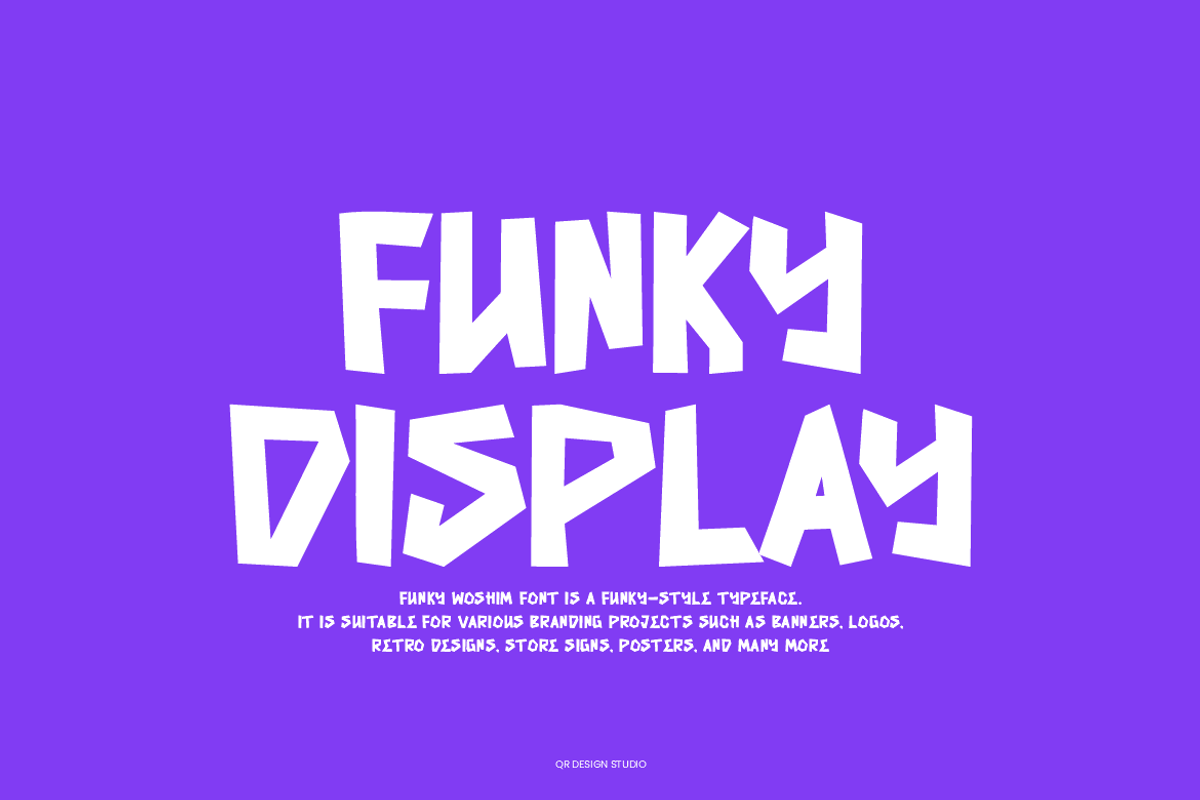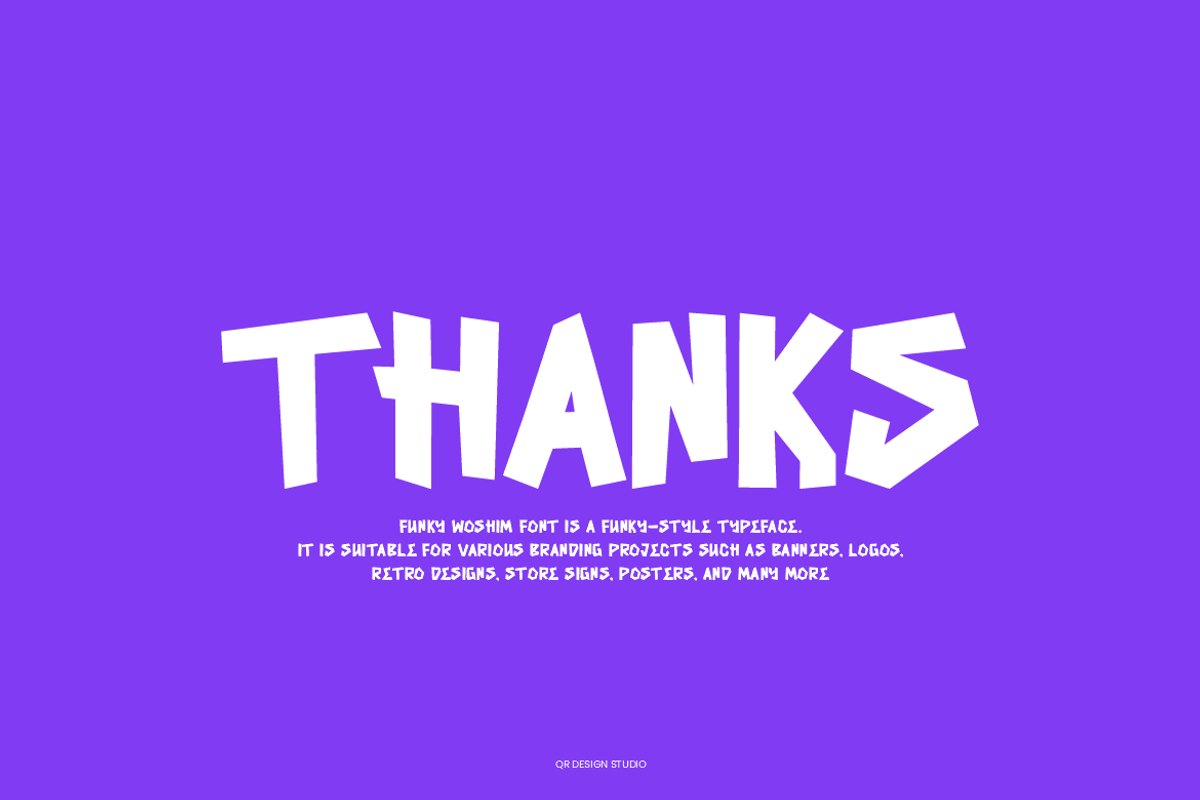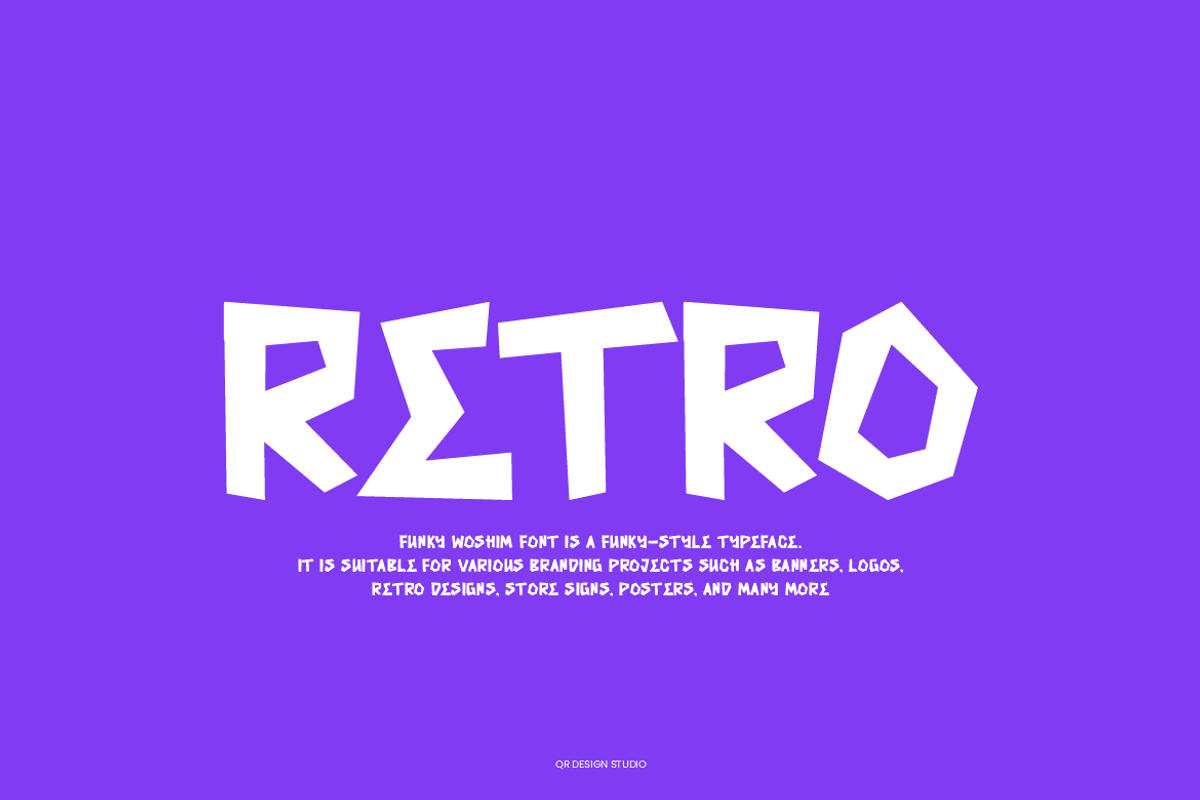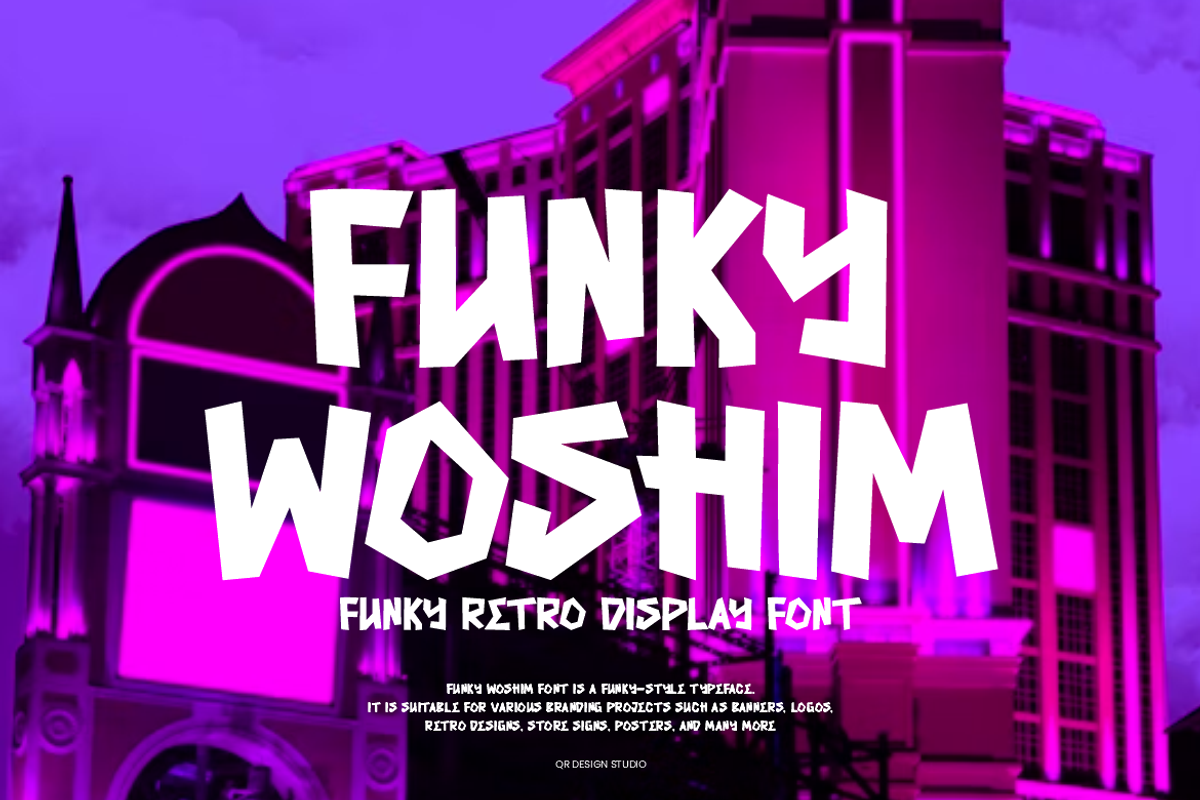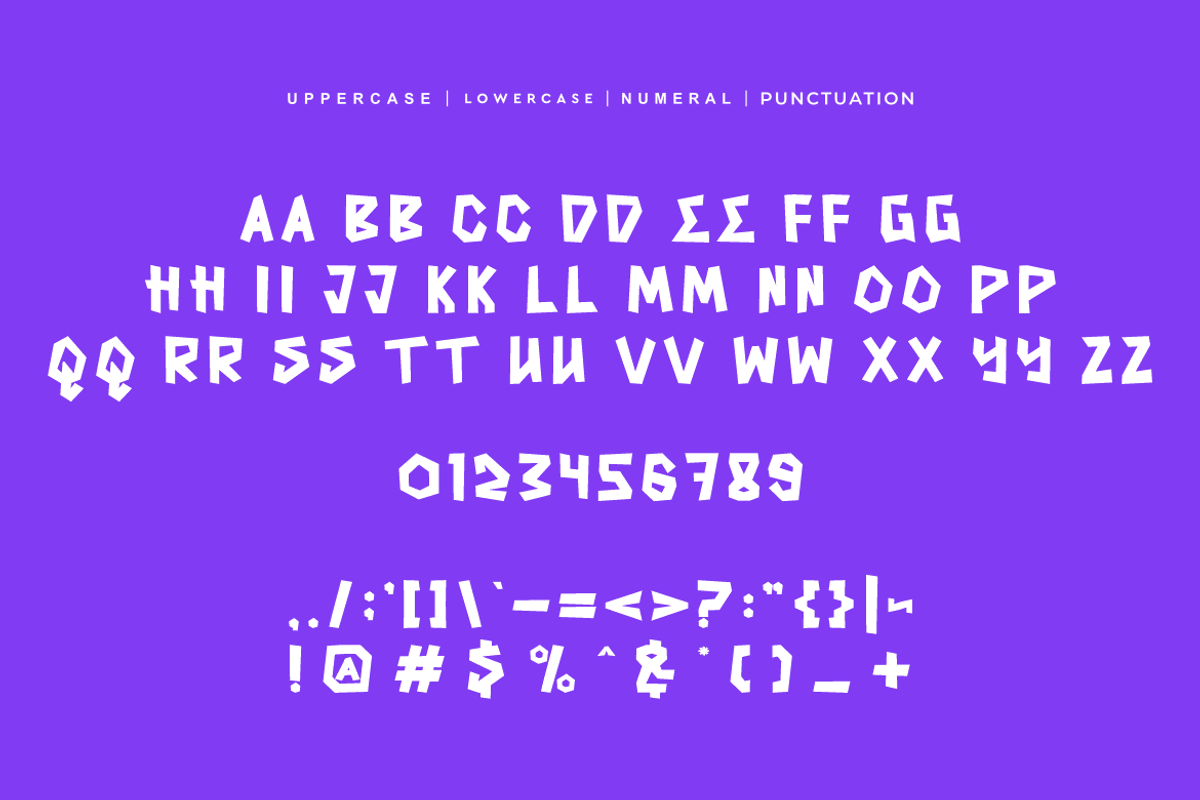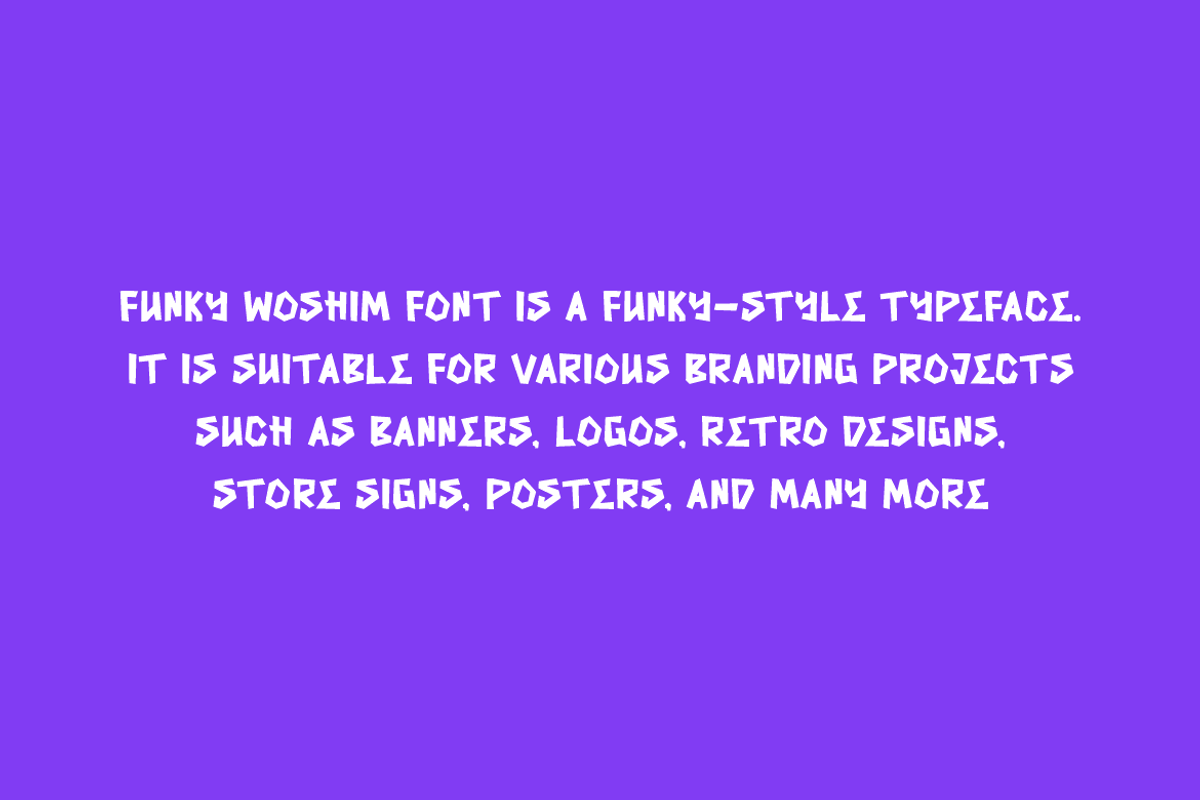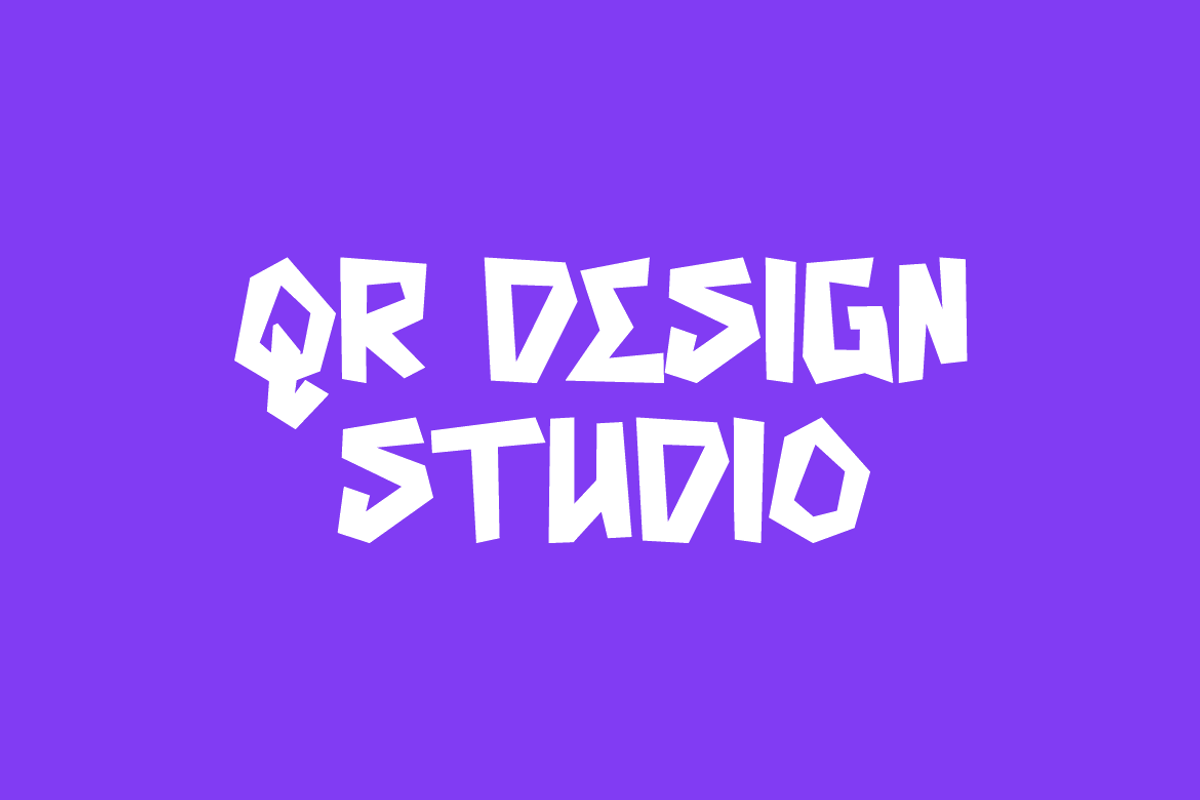
Funky Woshim - Retro Font
Funky Woshim Font is a funky and authentic display typeface. It’s perfect for various branding projects such as logos, retro designs, and more. This font stands out beautifully in a wide range of contexts.